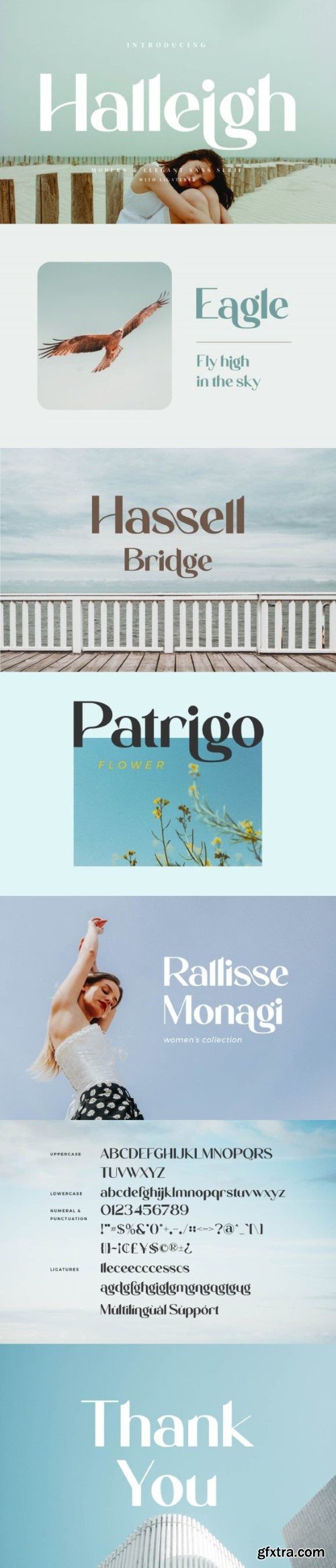
海勒字体
Halleigh is an elegant sans serif typeface inspired by the famous minimalist logo. It is perfect for the purposes of designing templates, brochures, videos, advertising branding, logos, invitation, layout design, elegant crafting, beauty design and others.